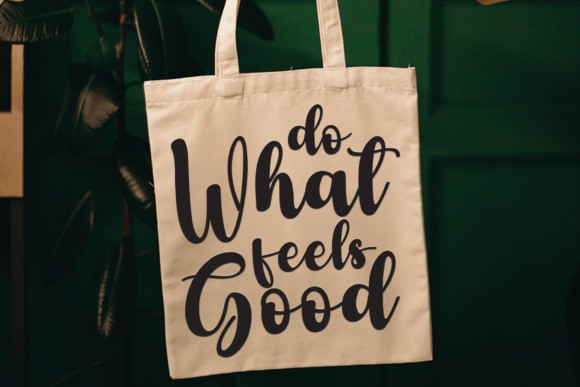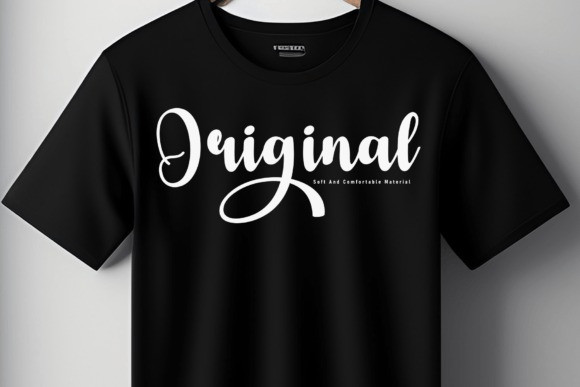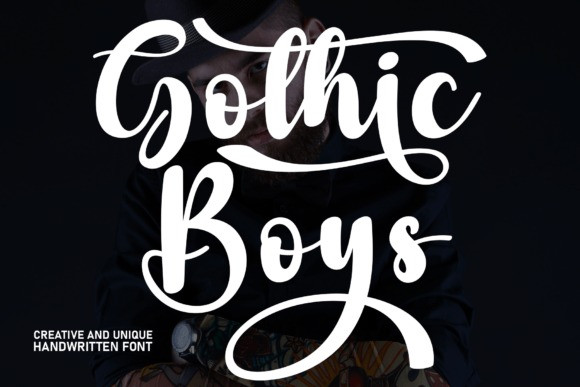
Gothic Boys Font
Gothic Boys Font is a sweet and friendly handwritten display font. Cute and fun, this font is ideal for writing wedding invitations, cards, or any other design that might need a fun touch!